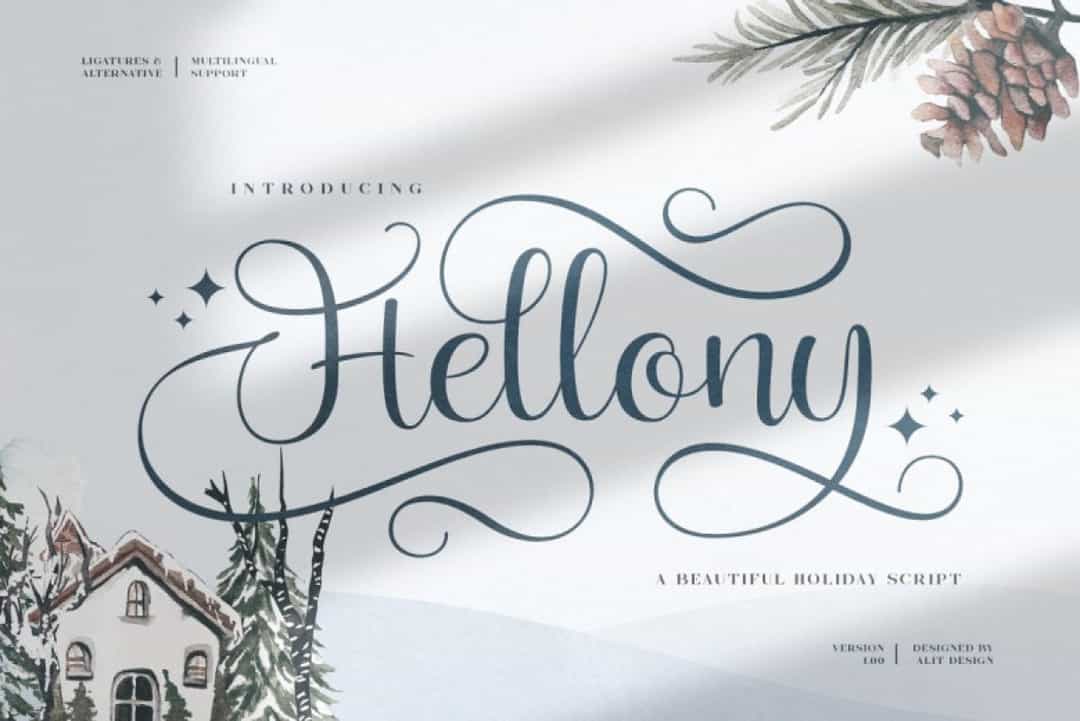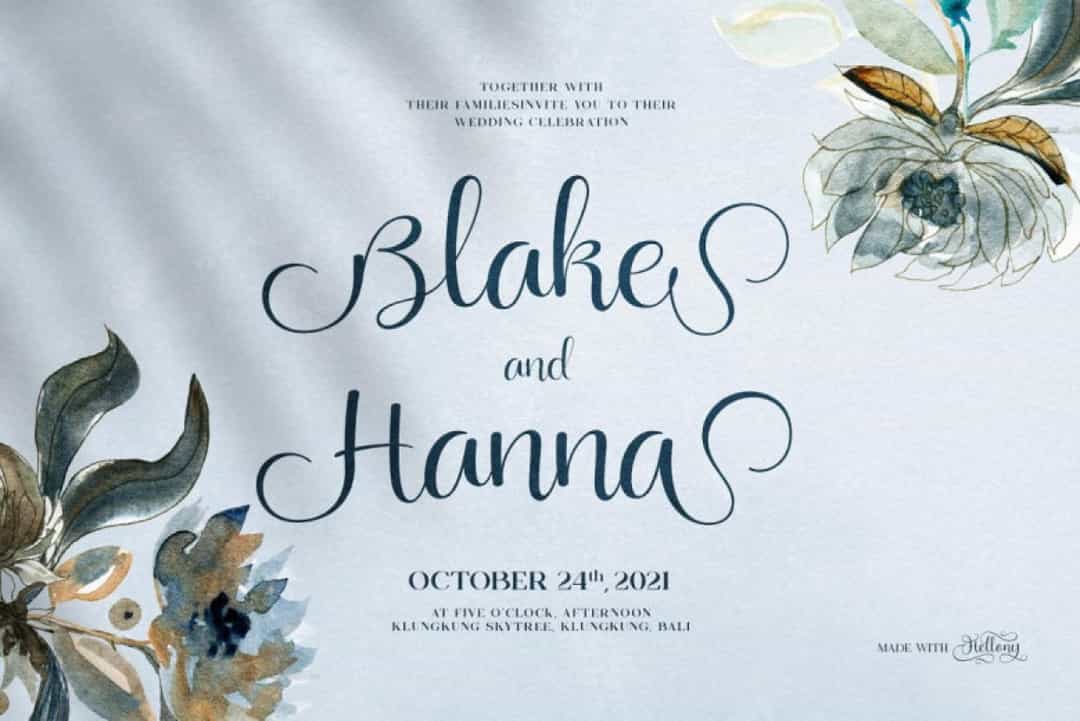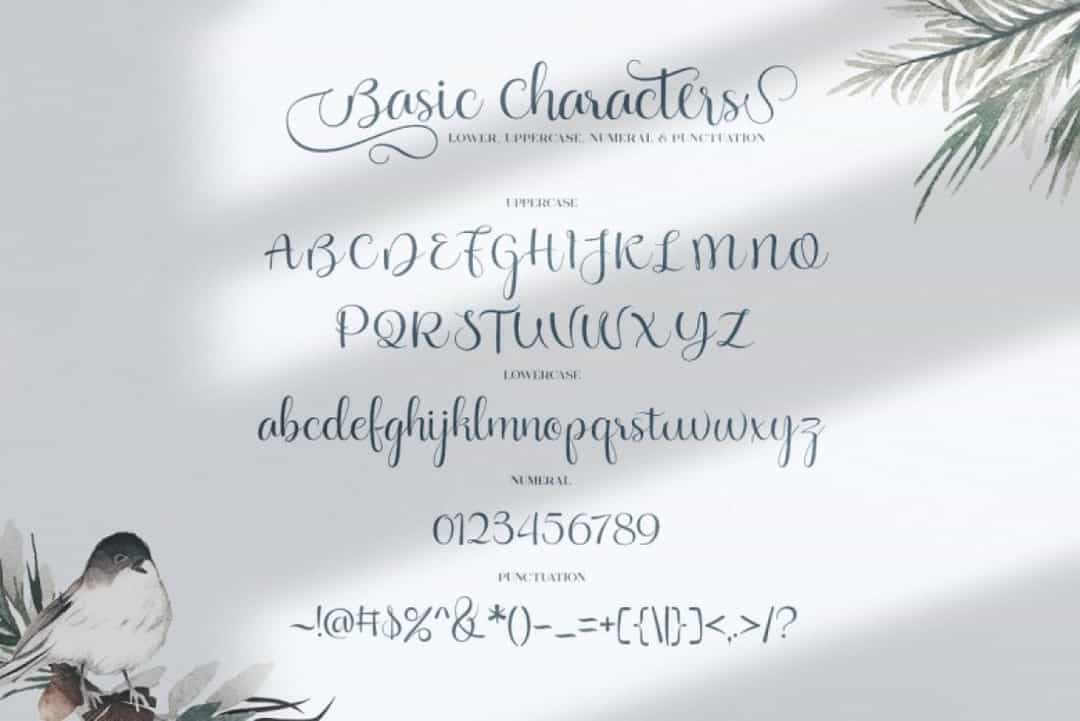
Discover Hellony Font, part of the Calligraphy collection—a versatile and unique font perfect for adding a personal touch to your projects. Download it for free and enjoy crafting designs with style, from invitations to social media posts. This font is available exclusively for personal use, giving you the freedom to create without limits. Unlock your creativity with Hellony Font today!
Hellony Typeface is an attractive typeface which uses a distinctive calligraphic script style for calligraphy to produce attractive yet relaxing designs. This font can easily be integrated into various designs ranging from Christmas cards and greeting card layouts, greeting card messages or stylish text headers.